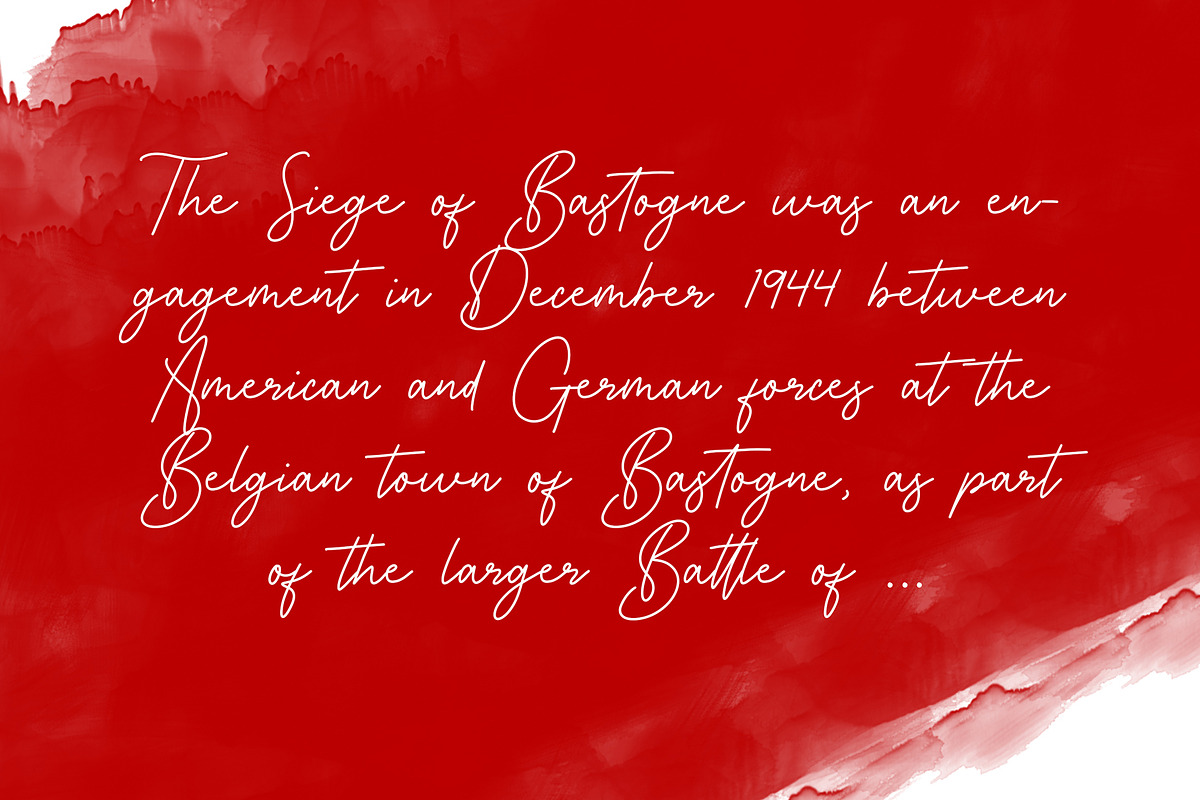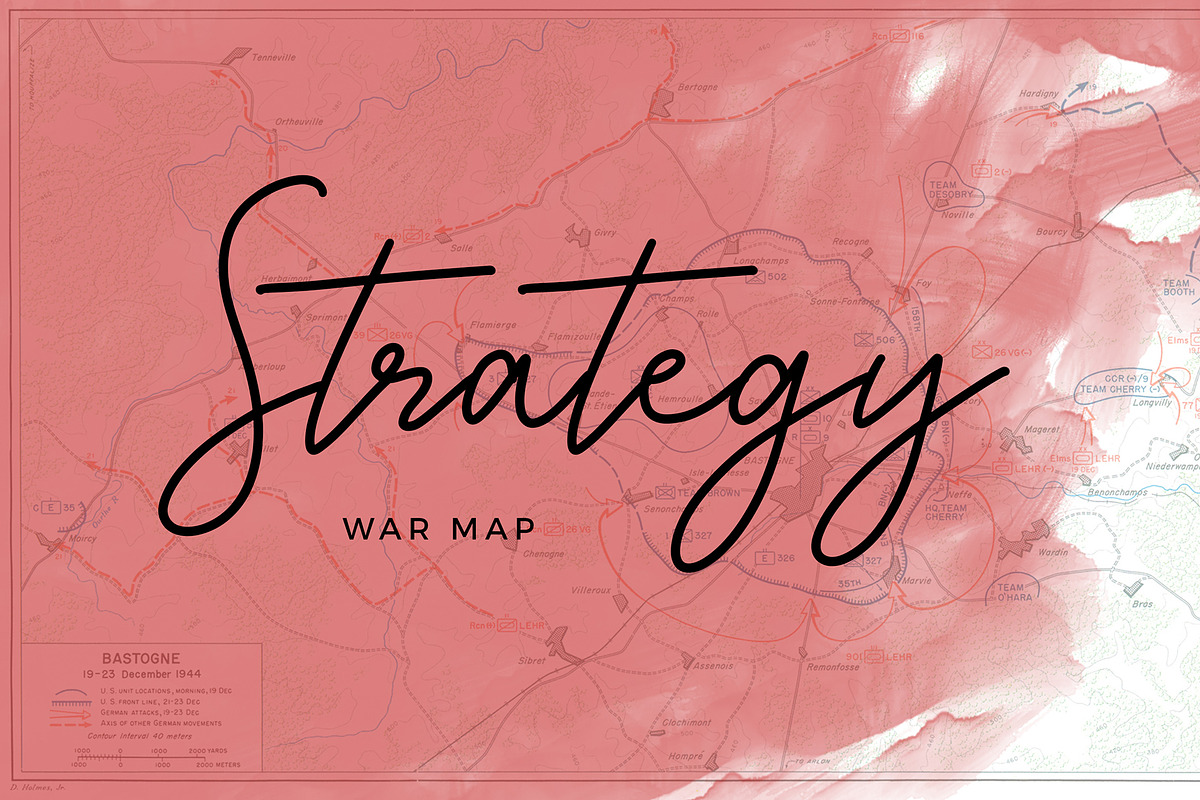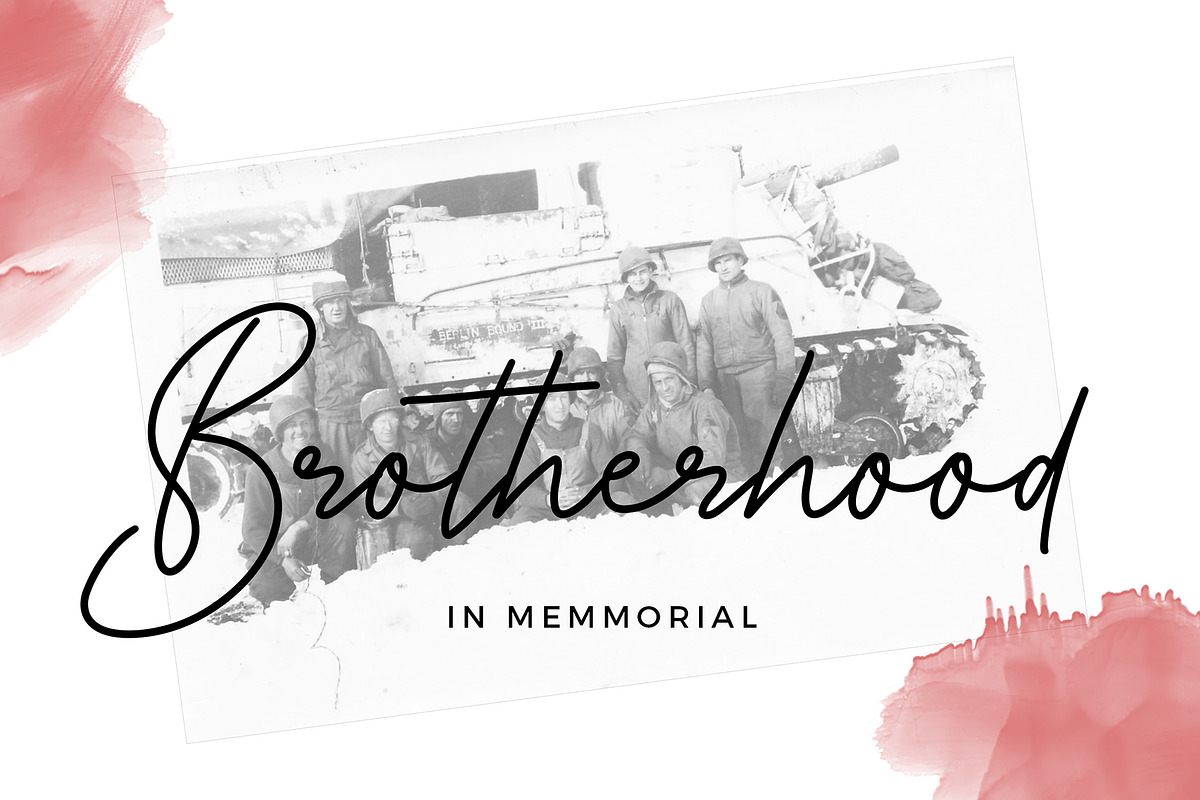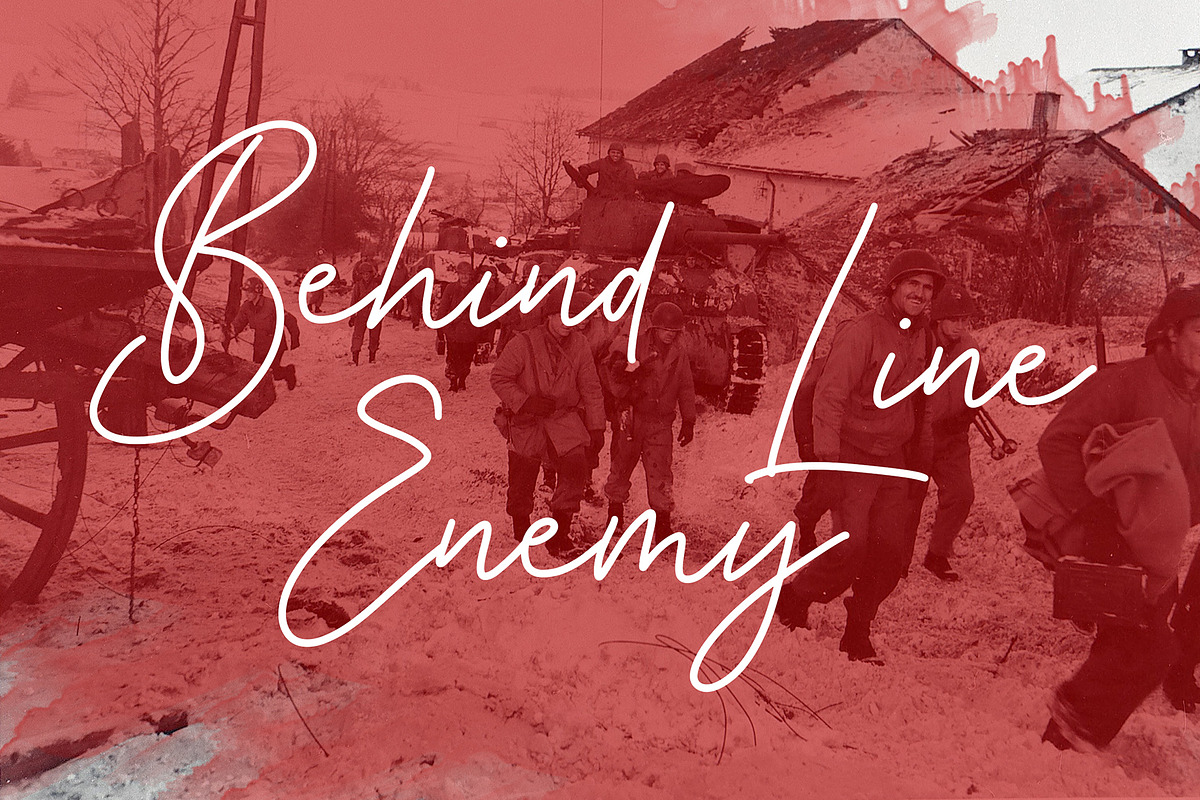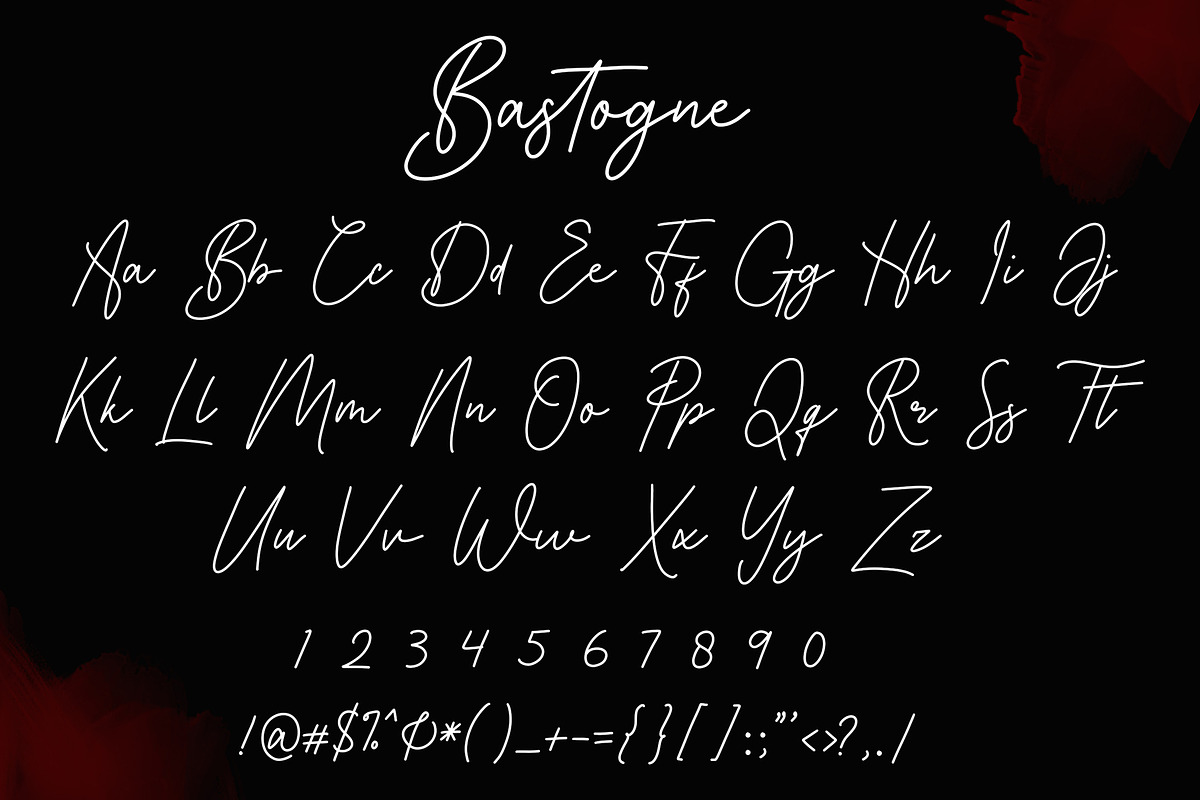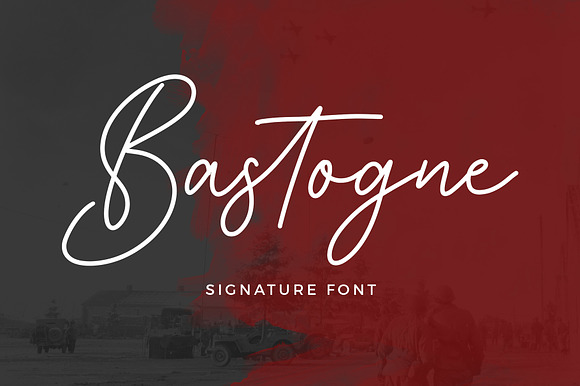
Bastogne Signature Font
Bastogne Signature Font is an exciting handwritten font with signature style. Fall in love with its elegantly playful nature!
Bastogne is perfect for branding projects, logo, wedding designs, social media posts, advertisements, product packaging, product designs, label, photography, watermark, invitation, stationery, movie poster, war classic theme and any projects.
Bastogne Signature Font by Formatika Studio fits naturally into Branding, posters, packaging, typography.